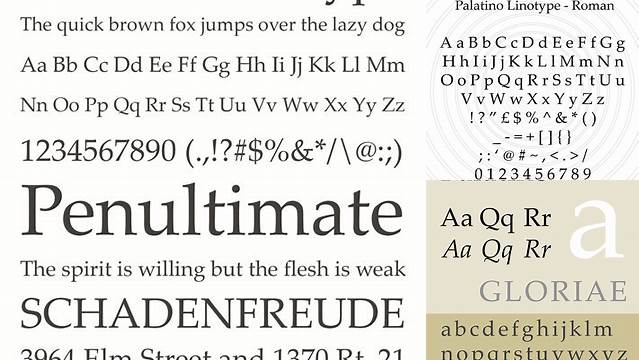
Palatino Linotype Font: Free Options And Design Tips
Palatino Linotype Font: Your Guide to a Timeless Classic
Hey there, design enthusiasts! Ever wondered about the elegant, classic fonts that just seem to scream sophistication? Well, today we're diving headfirst into the world of Palatino Linotype, a font that's been gracing documents and designs for decades. If you're on the hunt for Palatino Linotype font free options, you're in the right place. We'll unpack everything you need to know about this iconic typeface, from its history and design to where you can find it (and maybe even snag it for free!). So, buckle up, and let's explore the beauty and versatility of Palatino Linotype.
A Brief History: The Genesis of Palatino
Okay, so let's rewind the clock a bit and talk history, shall we? Palatino Linotype wasn't just whipped up overnight; it's got a rich heritage. The font's design is rooted in the Renaissance era, specifically inspired by the work of the Italian calligrapher and type designer, Giambattista Palatino. He was a true artist, and his work laid the foundation for this timeless font. The modern version of Palatino Linotype that we know and love was crafted by Hermann Zapf, a renowned German typographer. Zapf took Palatino's original calligraphy and gave it a new life, adapting it for modern printing technologies. The result? A typeface that's both classic and incredibly readable, making it a go-to choice for a wide range of applications. The font was first released in 1948, and since then, it has become a staple in the world of typography. Its enduring popularity speaks volumes about its design and its ability to convey a sense of elegance and professionalism. Whether you're working on a book, a website, or any other design project, Palatino Linotype can be a powerful tool to elevate your work. The history of Palatino is a testament to the enduring power of good design, and its legacy continues to inspire designers today. The font's design is a harmonious blend of classic principles and modern sensibilities, making it a perfect choice for anyone looking for a typeface that's both beautiful and functional. Its story is a reminder that great design is timeless, and its impact on the world of typography is undeniable.
Decoding the Design: What Makes Palatino Special?
Alright, let's get into the nitty-gritty of Palatino Linotype's design. What makes it so special, and why has it stood the test of time? First off, the font is classified as a humanist serif typeface. This means it has those little strokes at the ends of the letters (the serifs), but it's also designed to be warm and inviting, unlike some of the more rigid serif fonts out there. The strokes have a calligraphic feel that makes it look like it was handwritten with a broad nib pen, giving it a touch of artistry. The letterforms are open and easy on the eyes, contributing to excellent readability, which is a huge plus for any design project. The weight and proportions of the letters are just right. They're balanced, which is crucial for creating a cohesive look. The contrast between thick and thin strokes is subtle but noticeable, adding to its elegance and sophistication. It's not just pretty; it's practical. Palatino Linotype is incredibly versatile, and it can work in various settings, from body text in books to headlines in magazines. It's a workhorse that looks good everywhere. And, it is a great choice for both print and digital media because of its legibility. Whether you are using it for long-form content or short, punchy headlines, Palatino Linotype is a solid pick. This flexibility, combined with its classic look, makes it a favorite among designers who want to make a statement without being too flashy. It is a testament to the power of thoughtful design and its ability to create a visual language that resonates across different mediums.
Using Palatino Linotype: Tips and Best Practices
So, you've got your font, whether it's the original Palatino Linotype or a fantastic alternative. Now, how do you use it like a pro? First, let's talk about the ideal situations. Palatino Linotype shines in long-form text, like books, articles, and reports, because of its readability. The open letterforms make it easier on the eyes, so your audience can focus on the content. It's also great for print projects like brochures, invitations, and stationery. It's got a classic, elegant feel that's perfect for creating a sophisticated look. When using Palatino, pay attention to the size. It can appear a little smaller than some other fonts, so adjust accordingly to ensure readability. Always use a good font size for the body text. A general rule of thumb is between 10 and 12 points, but it can vary based on the design. If you're using Palatino for headlines, you can go bigger to emphasize the title. Also, don't be afraid to experiment with different weights and styles. Palatino comes in various weights like regular, bold, and italic. Using these different styles to add emphasis to certain words or phrases can be incredibly effective. Just make sure the styles you use are consistent with the overall design. As far as pairing with other fonts, Palatino Linotype is incredibly versatile. You can pair it with a sans-serif font for a modern look, or with another serif font for a more traditional feel. The key is to choose fonts that complement each other and create visual harmony. Palatino Linotype is a classic choice, but always remember to use it strategically and with purpose. It’s a great choice for creating both online and offline content.
Palatino Linotype vs. Alternatives: Making the Right Choice
Alright, let's face it, there are tons of fonts out there, so how do you decide if Palatino Linotype or an alternative is right for your project? Well, it all comes down to your needs, your budget, and the overall design goals. If you're working on a project where elegance and readability are top priorities, Palatino Linotype is still a strong contender. Its classic look and easy readability make it an excellent choice for long-form text and projects where you want to create a sense of sophistication. However, let's not forget the free alternatives. These can be a good way to get a similar vibe without the cost. Some popular alternatives include:
- Book Antiqua: This is another serif font with a classic feel and good readability. It’s a good alternative, but make sure that its aesthetics match with your project. It has a vintage charm and is widely used in book publishing. The choice depends on your goal.
- Garamond: This is another humanist serif that looks great in body text. Garamond is known for its elegance and legibility, making it another good option for long-form projects. It can be an option if you're trying to achieve a classic and sophisticated look.
- Georgia: Designed for readability on screen, Georgia is another serif option, especially if your project will be displayed online. It's a great choice for digital projects and has a very readable design. Georgia is another strong option, with a good balance of readability and style.
The best choice depends on your budget and your project's requirements. If you're willing to spend a little money, getting the original Palatino Linotype or a paid font can ensure quality and licensing rights. But if you are looking for free Palatino Linotype font alternatives, then there's a plethora of options to explore. Ultimately, the best choice is the one that best suits your project's needs and style. Consider the context, the audience, and the message you want to convey, and then choose the font that helps you achieve your goals.
Final Thoughts: The Enduring Legacy of Palatino
So, there you have it! A deep dive into the world of Palatino Linotype and its free alternatives. This classic font has left its mark in the world of design, and with its versatility and elegance, it continues to be a top choice for designers across various fields. The essence of design is about the ability to communicate and the font, in this case Palatino Linotype, is a crucial element of that. Whether you are an experienced designer or a beginner, understanding the power of this font is helpful. As you explore the options, consider the context and think about how the font will complement your project. Happy designing! Always remember to enjoy the process and have fun!